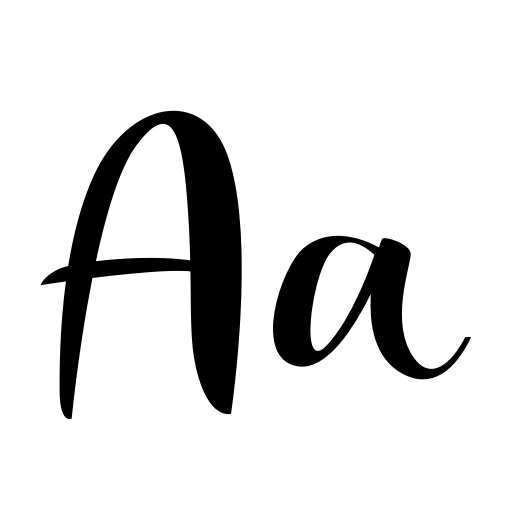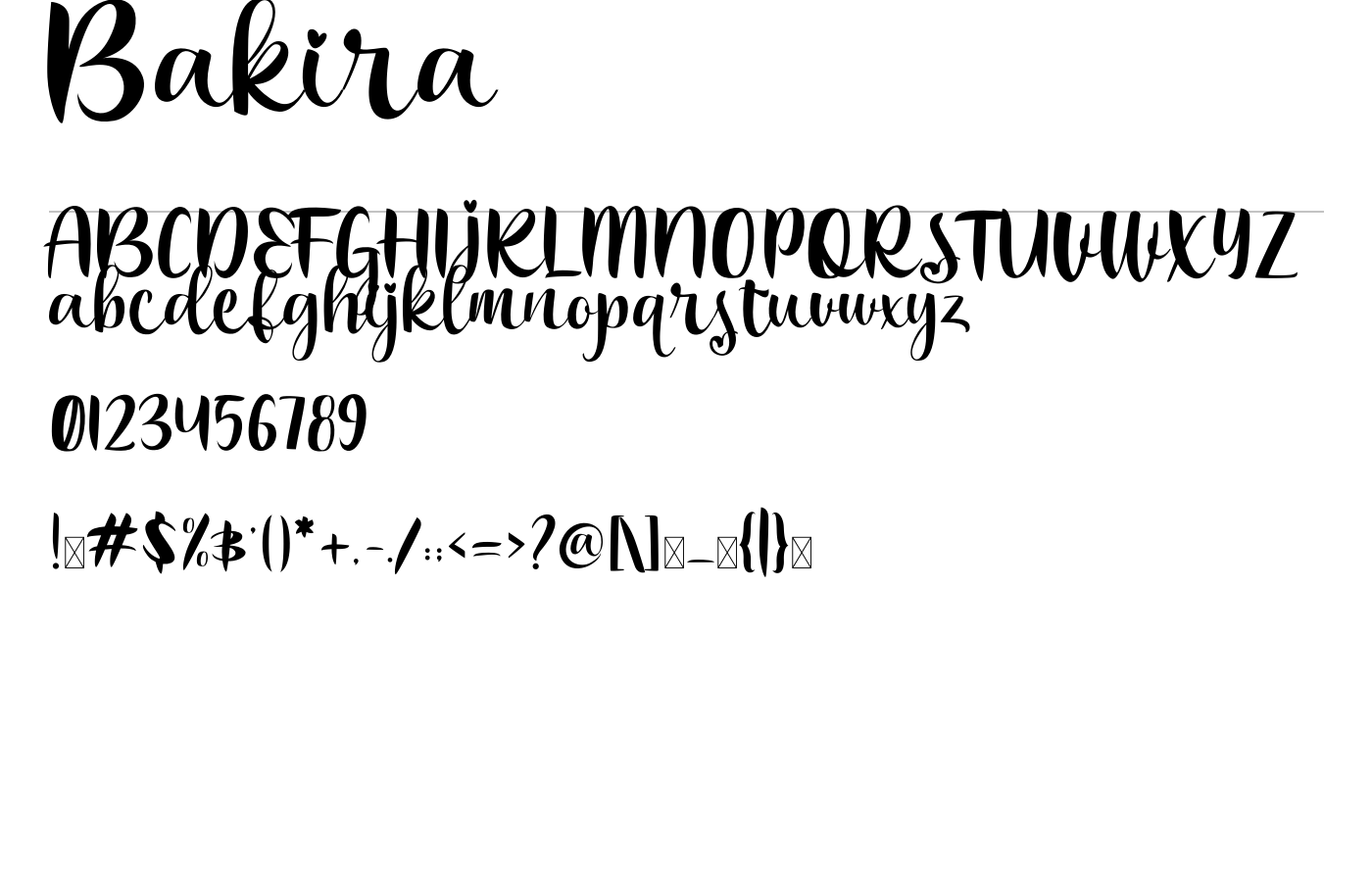
Bakira is a lively script font with a playful yet elegant feel, featuring bold strokes and smooth, flowing curves that give it a handwritten charm. Its mix of thick and thin lines, along with quirky heart details on some letters, make it ideal for creative projects like invitations, branding, and fashion packaging where a friendly and stylish vibe is desired. This font shines in headlines and logos, adding personality and warmth without losing readability.
Bakira Font
About Bakira Font
| Font family | Bakira Font |
| Designer | Agni Ardi Rein Prasetyo |